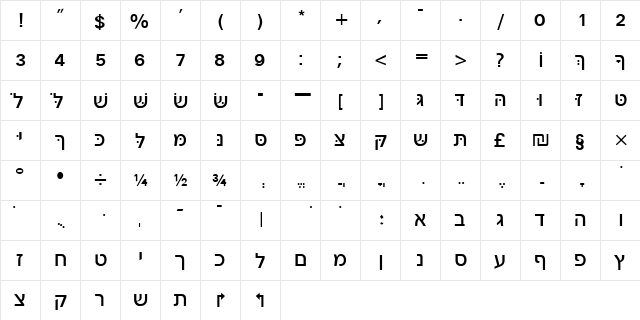
Noam New Hebrew Regular
Design Context for Noam New Hebrew Typeface
Noam New Hebrew offers clean, dependable letterforms without strong stylistic allegiance, making it a practical choice for designers who need flexibility.